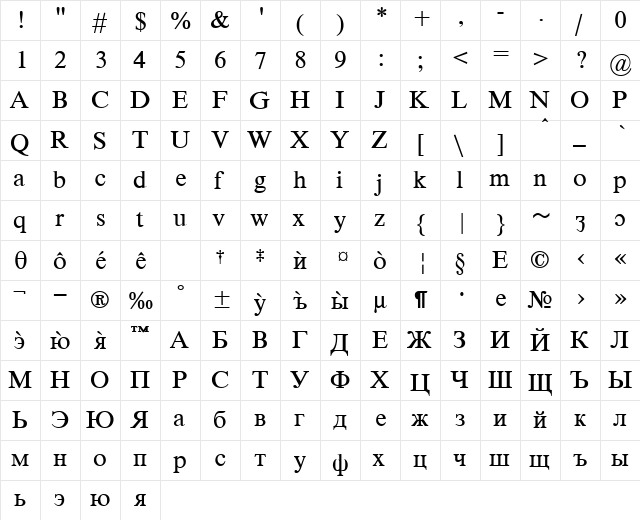
TmsEBD Normal Font Preview
TmsEBD Normal
TmsEBD Normal Font Details
Design Context for TmsEBD Typeface
TmsEBD takes a measured approach to typography — its balanced proportions and neutral character make it a reliable workhorse for both digital and print work.